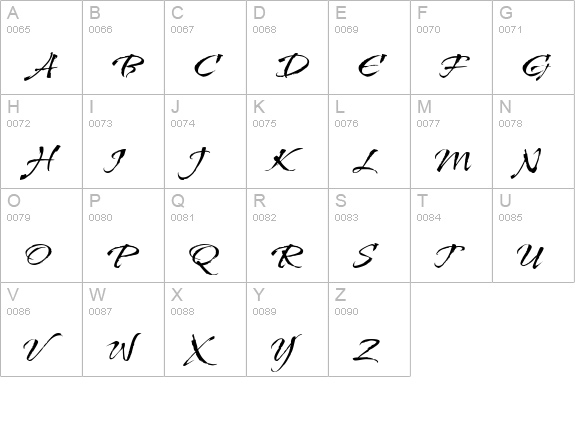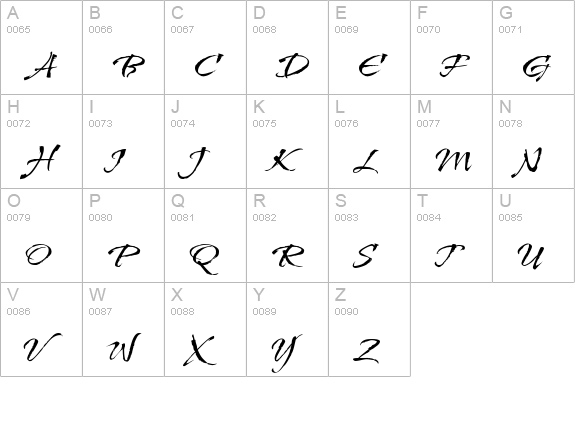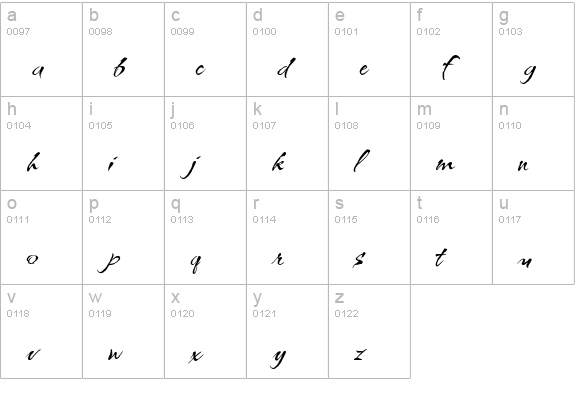
KolkerBrush ROB Font Details
KolkerBrush ROB font is a stunning and versatile typeface that exudes creativity and modernity. Its bold strokes and unique brush texture make it perfect for a wide range of design projects, from branding to advertising to social media graphics. The font's edgy yet elegant style is sure to make a statement and captivate viewers. What sets KolkerBrush ROB font apart is not only its striking design but also its accessibility. This fantastic font is available for free download at FontsMarket.com, making it a valuable asset for designers looking to add a touch of flair to their work without breaking the bank. Whether you're looking to create eye-catching headlines, stylish logos, or trendy social media posts, KolkerBrush ROB font is the perfect choice. Download it today and unleash your creativity with this exceptional and freely available typeface.